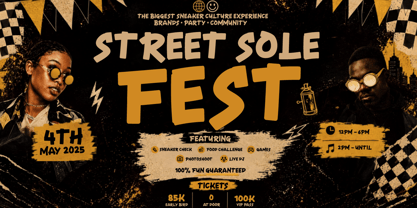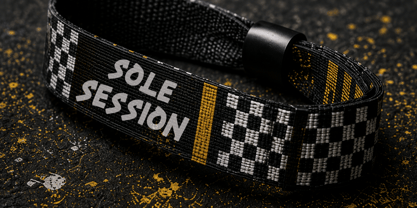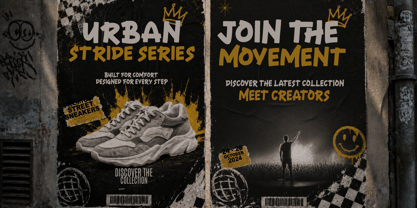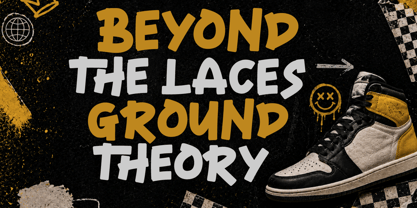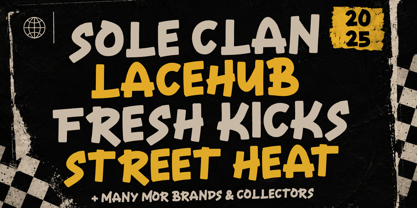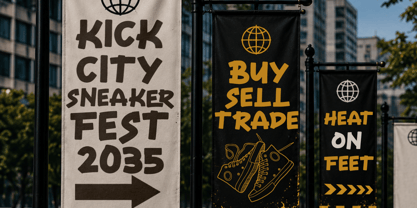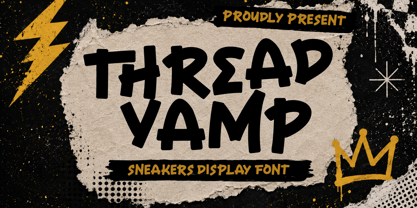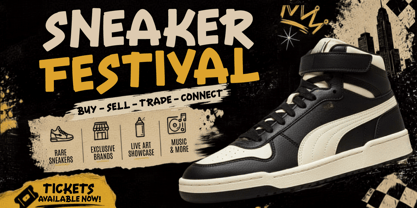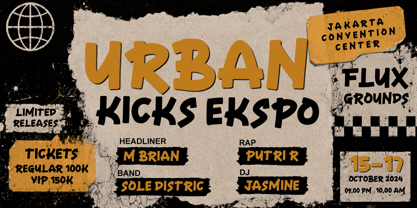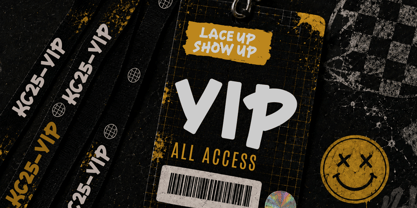
Thread Vamp brings a bold, expressive attitude inspired by sneaker culture, street style, and urban creativity. Its chunky brush forms create a strong visual presence that works especially well for headlines, posters, campaign graphics, event promotions, product launches, and fashion-focused designs that need an energetic and confident look.
From sneaker branding and streetwear collections to festival posters, shopping campaigns, social media graphics, and promotional artwork, Thread Vamp adds a raw handcrafted character to your visuals. Its distinctive personality makes it a versatile choice for designers looking to create memorable titles, bold statements, and attention-grabbing compositions.